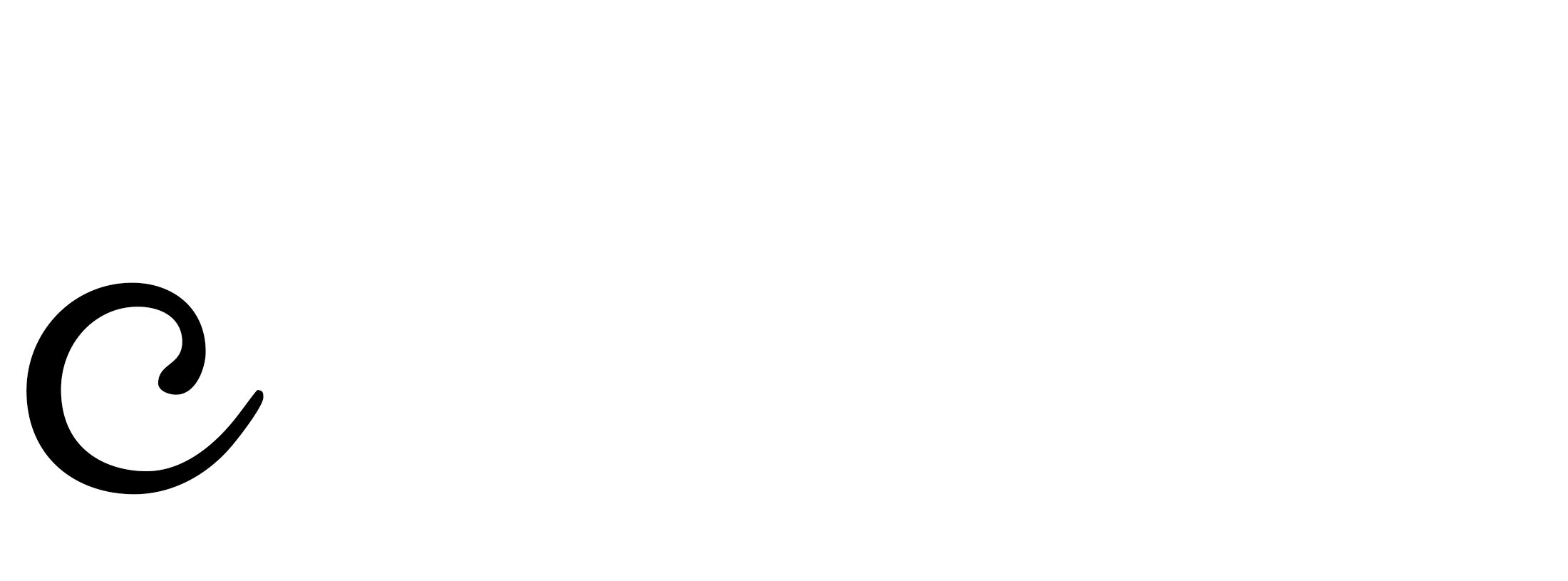
Mister K Informal – Personality United with Enhanced Readability
typeface name written in Mr K Informal
FF Mister K Informal, a key player in the Dresdner Essenz brand
Dresdner Essenz® wellness products branded by Berlin agency kakoii.
FF Mister K Informal is made for teachers, students, designers, story tellers, letter writers. This Mister K family member is based on texts Franz Kafka had rewritten from original drafts – a very clear and readable script ideally suited for texts, tables and formulas that unite clarity with a relaxed personal feeling — a typeface for all fields of knowledge and learning.
Sample of FF Mister K Informal
FF Mister K Informal OpenType Features
Like in all Mister K fonts, OpenType features determine the selection of glyphs in different contexts. These features are also a helpful tool for underlining, crossing out words, using various editing marks or special capitals for acronyms and formulas. There are more than 2500 glyphs in Mister K Informal, among them a wide range of symbols, oldstyle figures and an extended Cyrillic character set.
OpenType feature “Standard ligatures” turned on
Example with OpenType feature “Standard ligatures” turned on
OpenType feature “Standard ligatures” turned off
Also good looking when OpenType feature “Standard ligatures” is turned off …
Australian shopping mall with Mister K Informal in its logo.
The Australian shopping mall “the Strand at Coolangatta” uses Mister K Informal in its logo.
Mister K Informal: Dresdener Essenz by kakoii
Dresdener Essenz by Kakoii
Mister K Informal font in use: Walder shoes
Mister K Informal: Walder Schuhe (by Leo Burnett)
Mister K Informal: Dr. Oetker's Winterliche Back-Ideen
Backen ideas for winter time: Dr. Oetker “Winterliche Back-Ideen”
M. Bulgakov, “Dog’s Heart”, excerpt in Mister K Informal, in Russian
Cyrillic of Mister K Informal: Excerpt from “Dog’s Heart” by Michail Bulgakov: Of sixtythousand dogs in Moscow there’s probably not one of them so stupid he can’t spell out the word ‘sausage’.
character set of Mister K Informal
The character set of Mister K Informal